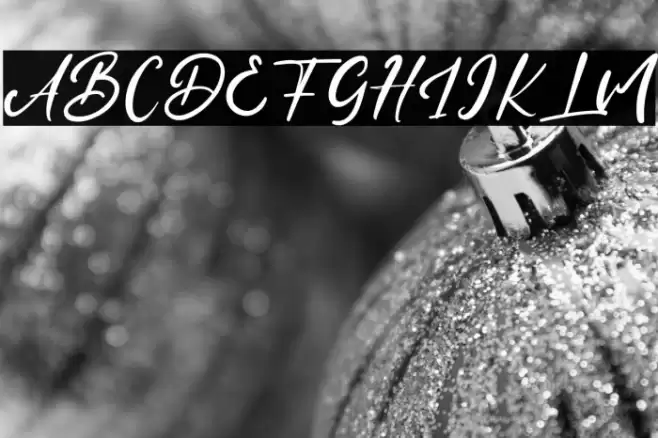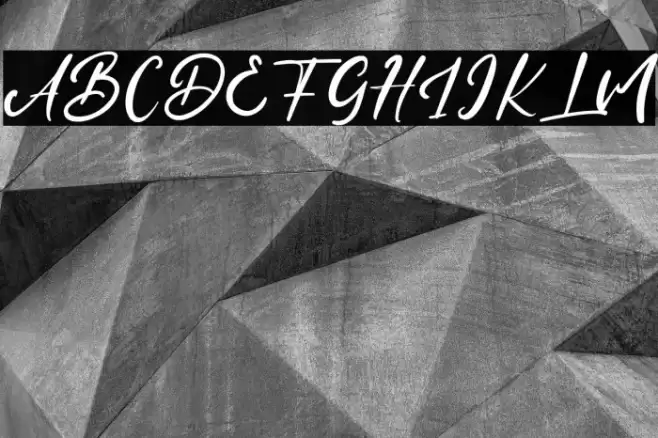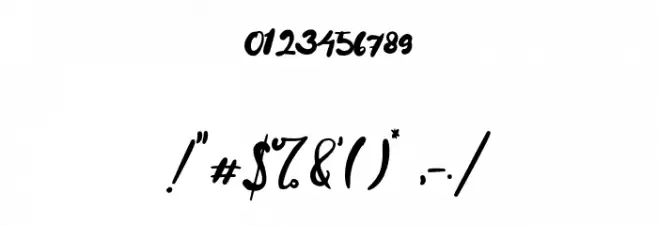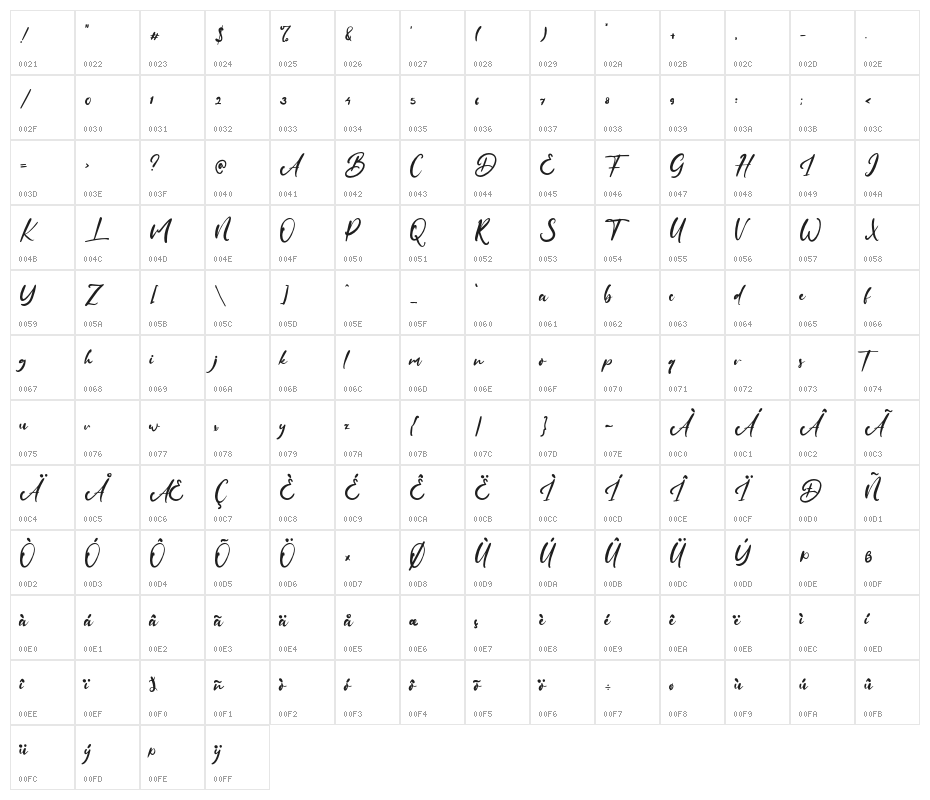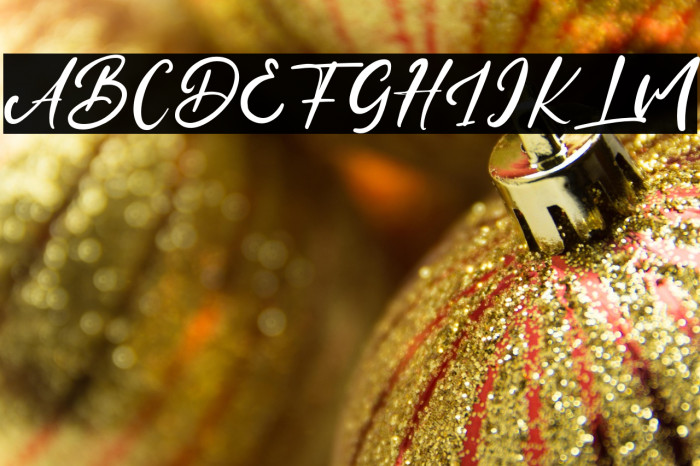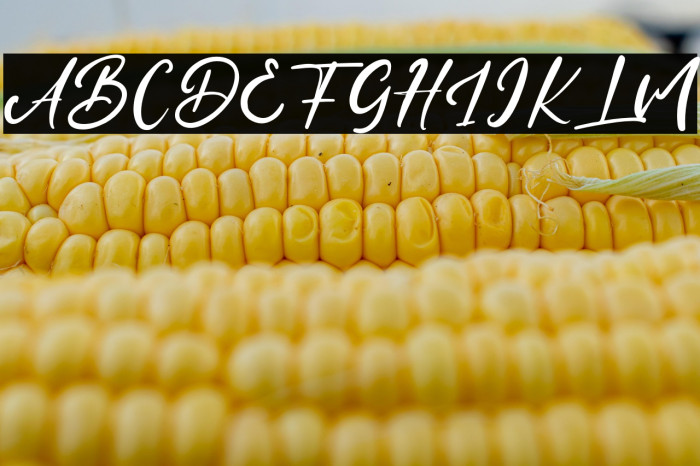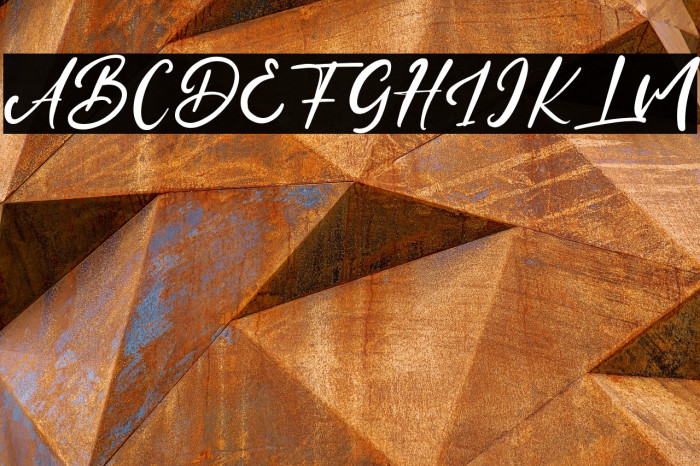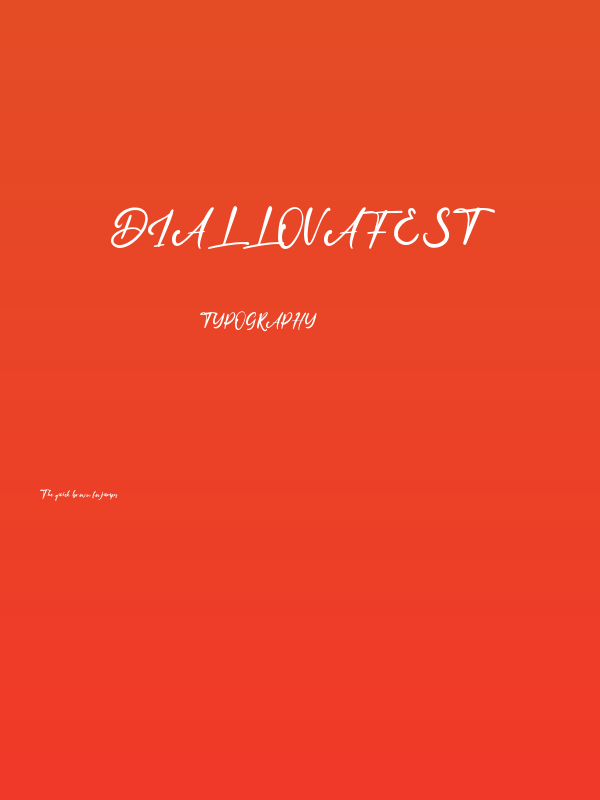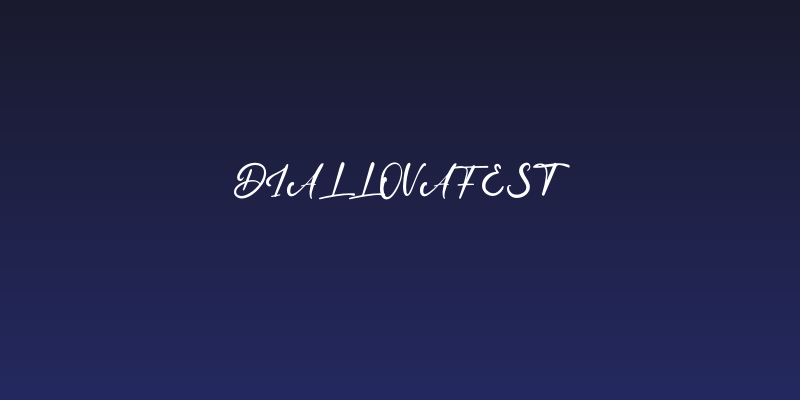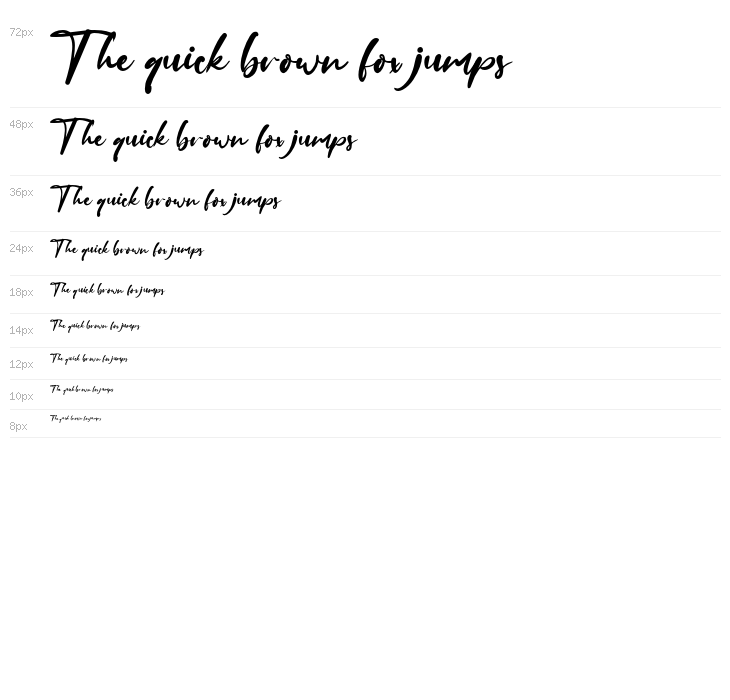
DiallovaFest Font
DiallovaFest Description
This font exhibits a flowing, cursive style with a modern flair. The uppercase letters are elegantly crafted with sweeping curves and a slight slant, giving them a dynamic and graceful appearance. The lowercase letters maintain a consistent style, with smooth connections and a handwritten feel. The numbers are clear and legible, matching the overall aesthetic. Special characters are thoughtfully designed to complement the letterforms, adding to the font's versatility. This font is ideal for projects that require a personal touch, such as invitations, greeting cards, or branding materials.
A modern, cursive font with elegant, flowing letterforms from Uncategorized fonts.
- Font: DiallovaFest
- Proposed Projects: Ideal for wedding invitations, branding, greeting cards, and personal stationery.
- Use Case: Logos, Headlines, Invitations